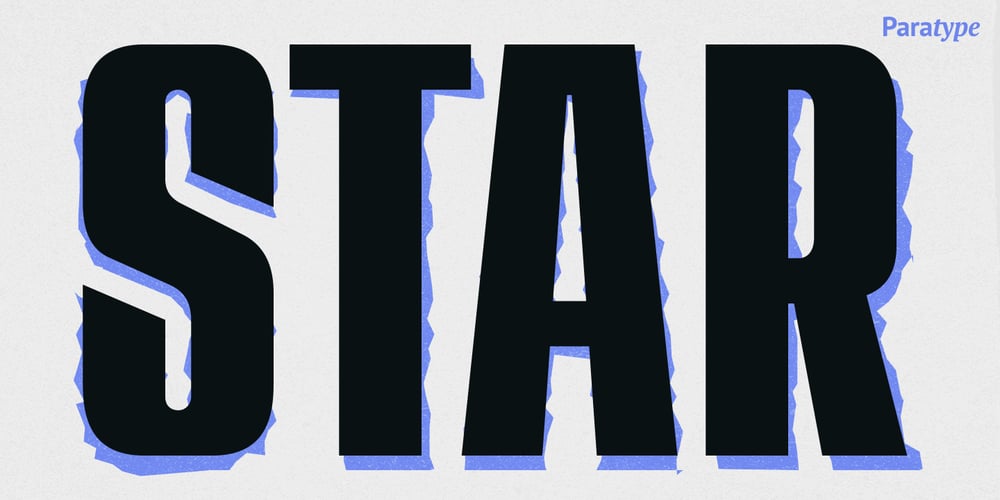
Star
Star font
Star Font Family was designed by Alexander Tarbeev and published by ParaType. Star contains 2 styles and family package options. Designed at ParaType in 1995 by Alexander Tarbeev, based on PT Compact, 1991, by Vladimir Yefimov. A decorative style was added in 1996. For use in advertising and display typography.